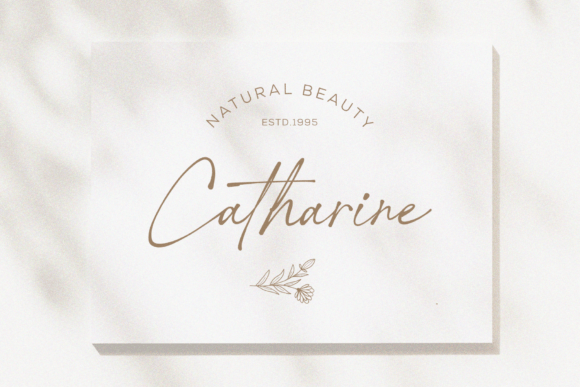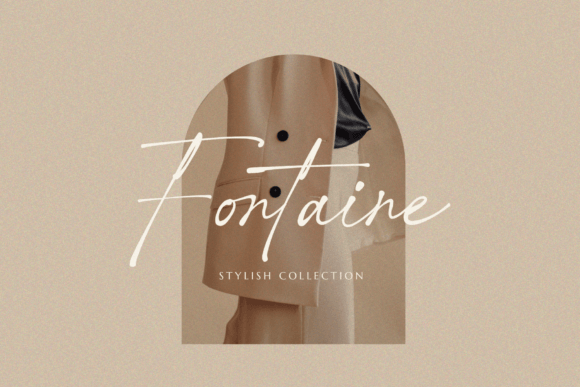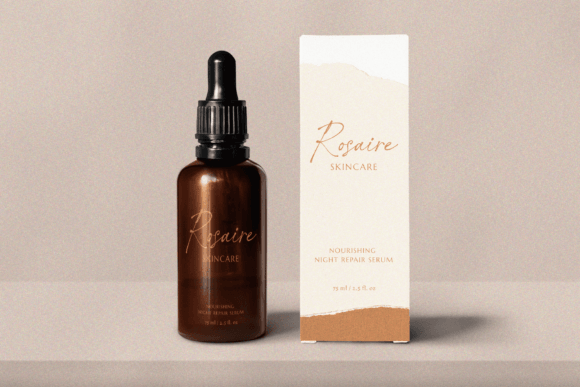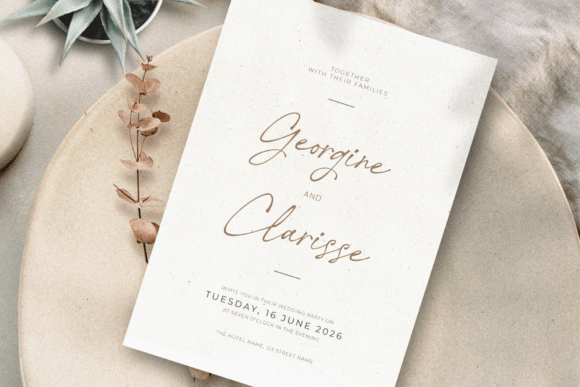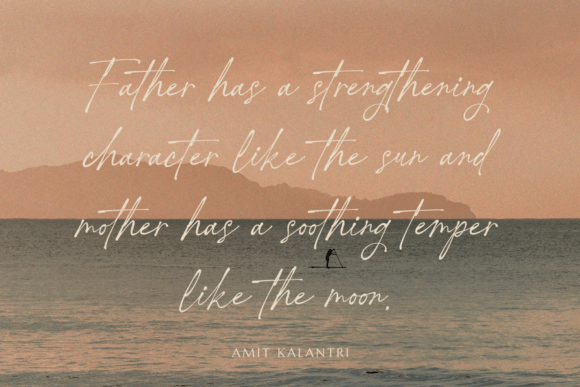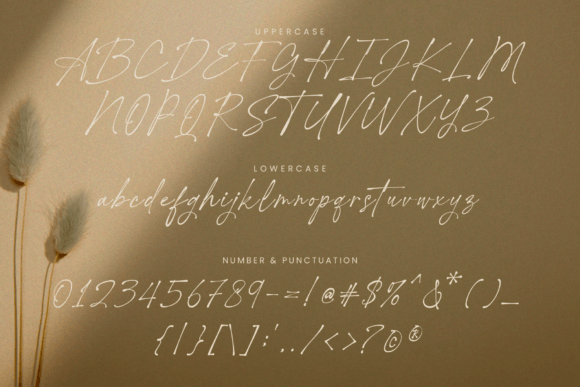
Introducing Hanifah Salamah Font: Elevate Your Designs with Elegance and Sophistication
In the world of design, typography plays a crucial role in conveying messages, evoking emotions, and creating lasting impressions. For designers and crafters seeking a font that embodies elegance and natural beauty, look no further than the Hanifah Salamah Font. This stunning, special edition font is crafted to bring a touch of sophistication to your design projects, making it perfect for a wide range of applications.
The Beauty of Hanifah Salamah Font
Hanifah Salamah Font is a masterpiece that showcases intricate, natural lines in every shape, exuding a sense of refinement and poise. Its unique design makes it an excellent choice for designers who want to add a distinctive flair to their work. With Hanifah Salamah, you can unleash your creativity and take your designs to the next level, whether you’re working on social media graphics, advertising materials, product packaging, or any other project that requires a touch of elegance.
One of the standout features of Hanifah Salamah Font is its versatility. This font is perfect for a multitude of design projects, including:
- Social media graphics: Elevate your posts and stories with a sophisticated font that grabs attention.
- Advertising: Create compelling ads that convey your message with style and poise.
- Product packaging: Add a touch of luxury to your product packaging and make it stand out on store shelves.
- Product design: Incorporate Hanifah Salamah into your product designs for a unique and elegant look.
- Labels: Create eye-catching labels that showcase your brand’s personality.
- Photography: Use Hanifah Salamah as a watermark or overlay to add a touch of sophistication to your photos.
- Invitations: Design beautiful invitations that set the tone for special occasions.
- Stationery: Add a touch of elegance to your stationery, making it perfect for personal or professional use.
Hanifah Salamah Font is PUA (Private Use Area) encoded, which means you can easily access all the amazing glyphs and ligatures. This feature allows you to explore the full creative potential of the font, making it easier to craft unique and visually stunning designs. With PUA encoding, you can:
- Access a wide range of glyphs and ligatures.
- Customize your designs with ease.
- Save time and effort in creating intricate designs.
Why Choose Hanifah Salamah Font?
Hanifah Salamah Font is more than just a font – it’s a design solution that offers:
- Elegance and sophistication: Add a touch of refinement to your designs.
- Versatility: Use it for a wide range of design projects.
- Easy access: PUA encoding makes it simple to access glyphs and ligatures.
- Creative freedom: Unleash your creativity and experiment with unique designs.
Hanifah Salamah Font is a beautiful, special edition font that offers designers and crafters a unique opportunity to elevate their designs with elegance and sophistication. Its natural lines, versatility, and PUA encoding make it an excellent choice for a wide range of design projects. Whether you’re a professional designer or a crafty DIY enthusiast, Hanifah Salamah Font is sure to inspire your creativity and help you create stunning designs that leave a lasting impression.